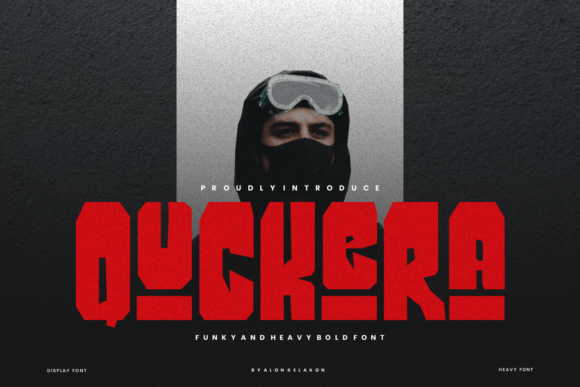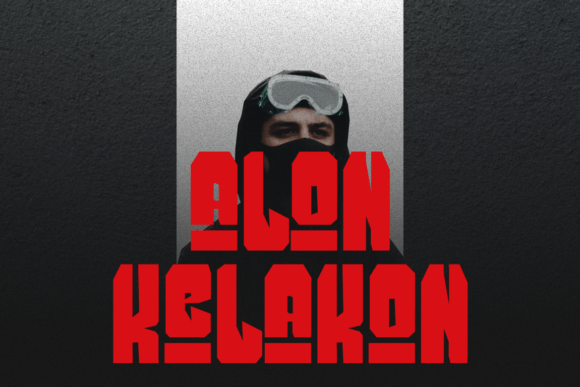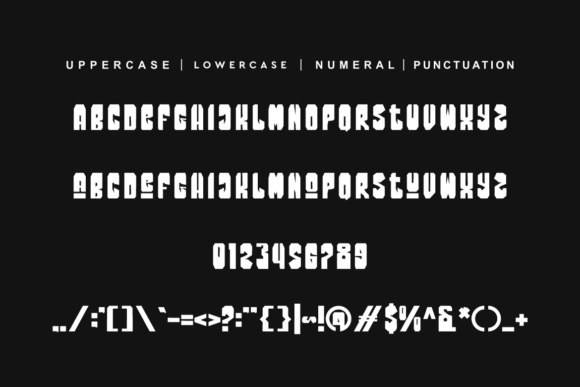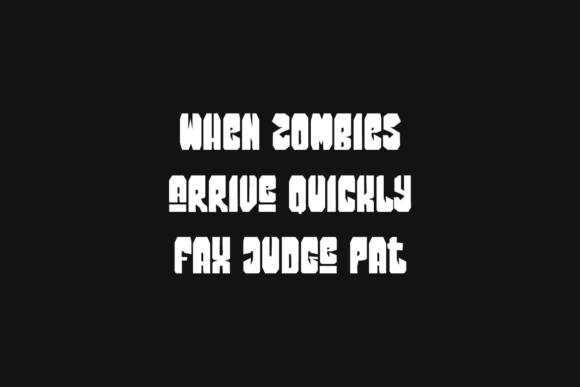
Quckera Font: Funky Bold Display Font for Eye-Catching Poster Designs
About the Quckera Font
Meet Quckera Font, a stunning font that brings a touch of elegance and professionalism to any design. Quckera Font is unique. Ready to use for your design like labeling, movie sceen, poster, movie title, gigs, album covers, logos, and much more.
Quckera’s bold, slightly retro style makes it ideal for headlines, posters, and branding projects requiring a strong visual impact. It works exceptionally well for logos, album art, and short impactful titles where readability isn’t paramount over visual presence. However, its condensed letterforms and strong weight make it unsuitable for body text or UI elements requiring high legibility at smaller sizes.
Pairing Quckera effectively depends on the desired mood. For a modern, energetic feel, consider pairing it with a clean sans-serif like Montserrat or Open Sans. A more classic and sophisticated look can be achieved by using a serif typeface such as Garamond or Playfair Display. For a touch of playful contrast, a handwritten script font could complement its bold structure.
The overall personality of Quckera is energetic and confident, conveying a sense of vintage boldness suitable for brands aiming for a retro-inspired yet contemporary aesthetic.
Quckera Font Usage Examples
Quckera Font Example